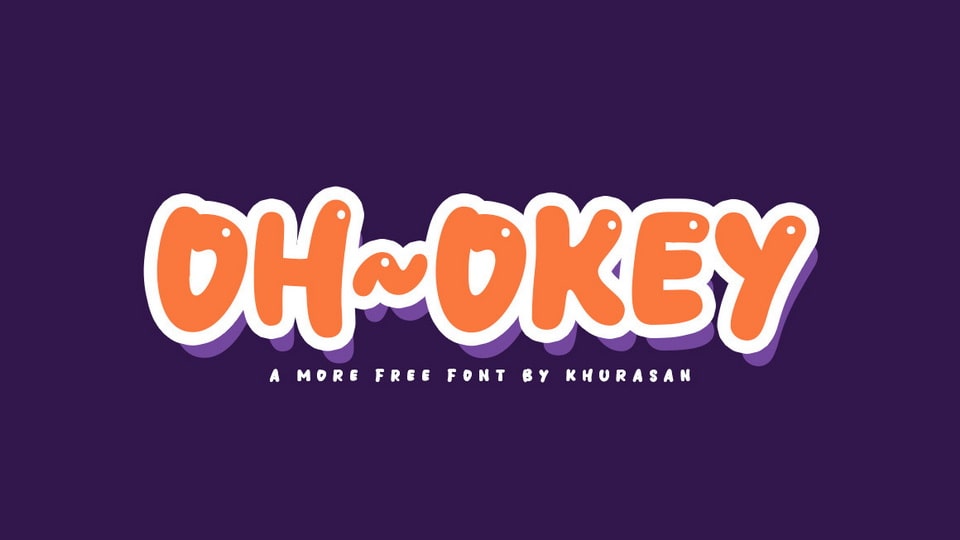
Download Oh Okey font, a cute and playful handwritten typeface. Oh Okey font is perfect for posters, logos, magazines, book covers, banners, and many more lovely designs!